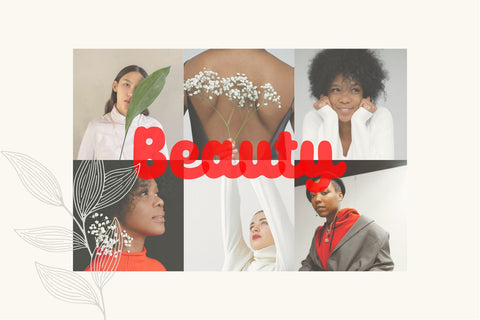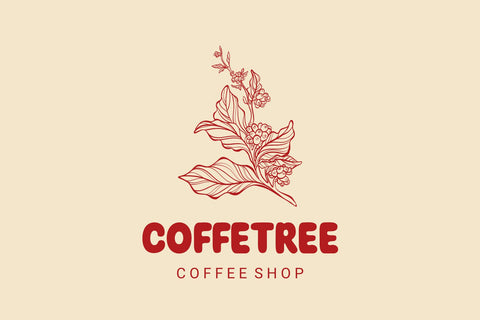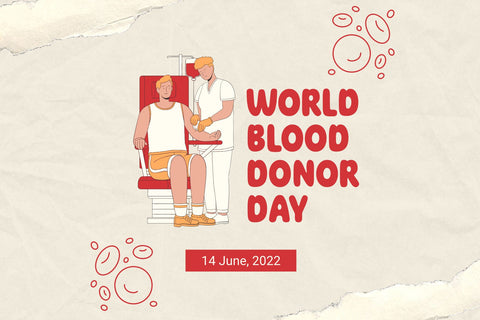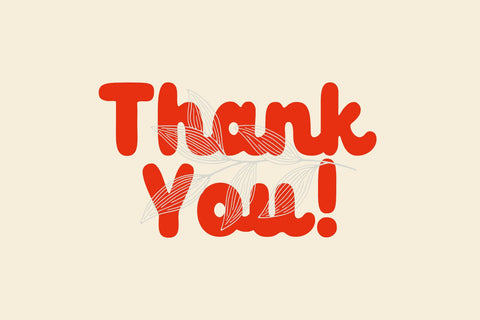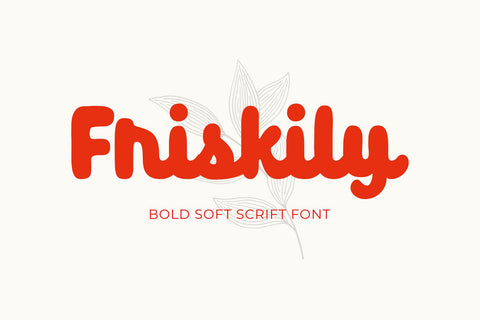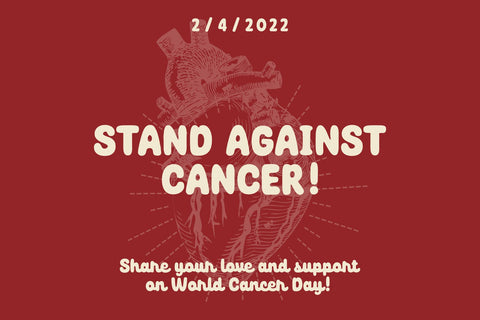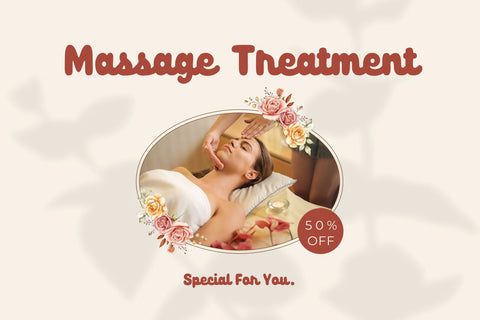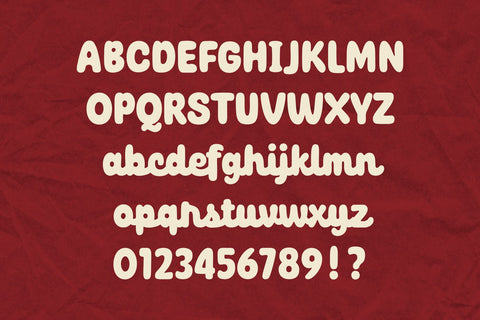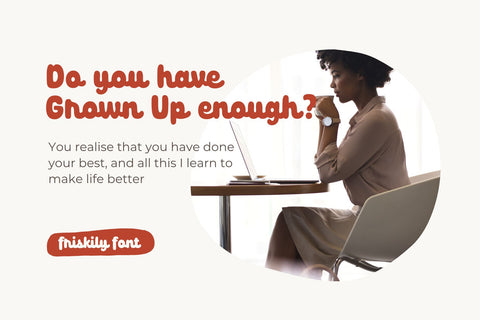
Friskily - Soft Bold Script Font
Friskily is a soft bold script font with a retro and simple vibe. It will look great on headlines, magazines, logos, branding and so much more!